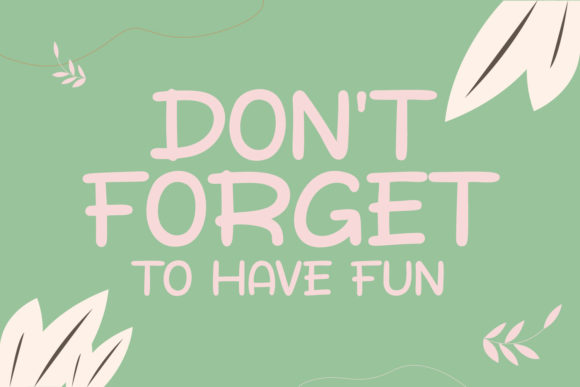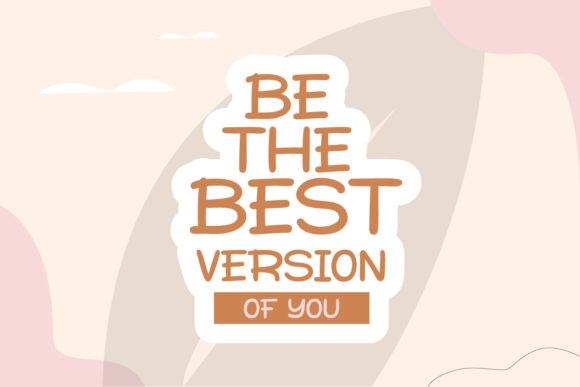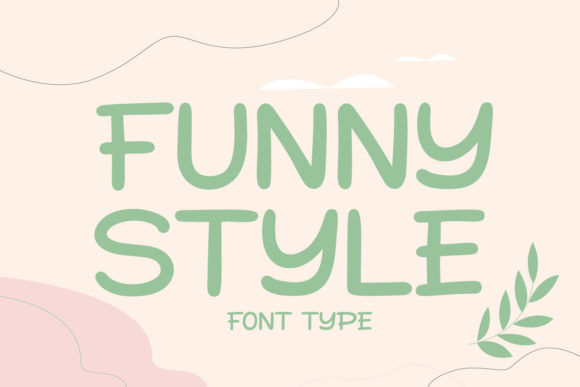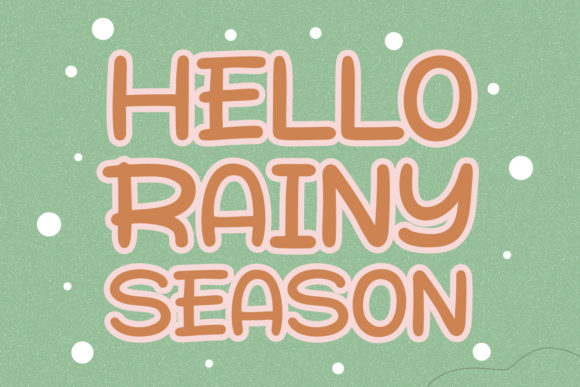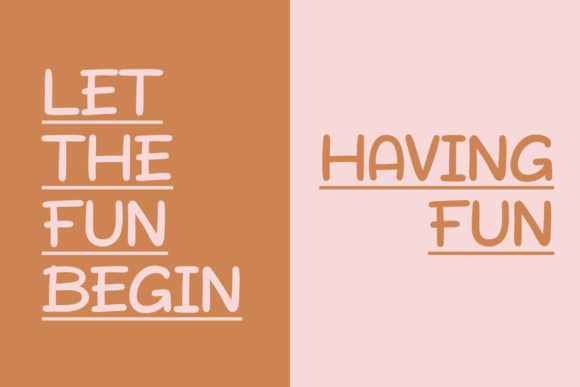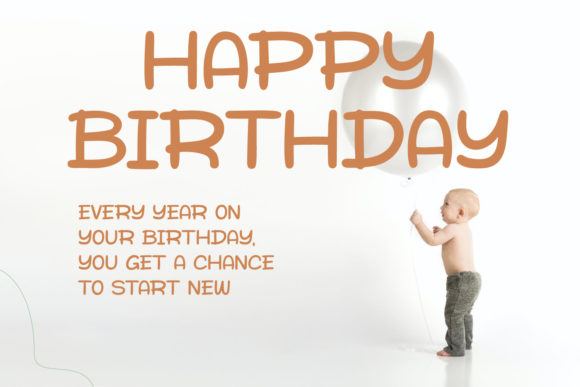
Bubbly Kids Font: Add a Cheerful Touch to Your Designs
Are you looking for a font that can add a playful and cheerful touch to your designs? Look no further than Bubbly Kids Font! This adorable display font is perfect for projects related to school children, games, storybooks, and more. In this article, we’ll explore the features and benefits of Bubbly Kids Font and how you can use it to take your designs to the next level.
What is Bubbly Kids Font?
Bubbly Kids Font is a cute and fun display font designed to bring a smile to your face. Its playful and cheerful design makes it perfect for projects that require a lighthearted and youthful touch. The font is carefully crafted to resemble the handwriting of happy and excited kids, making it an excellent choice for designs that need to appeal to children or evoke a sense of nostalgia.
Key Features of Bubbly Kids Font
- Cute and Playful Design: Bubbly Kids Font features a unique and adorable design that is sure to capture the attention of your audience.
- Display Font: This font is specifically designed as a display font, making it perfect for headlines, titles, and other prominent text elements.
- Cheerful and Happy Touch: The font’s playful design adds a cheerful and happy touch to your designs, making it perfect for projects that require a lighthearted tone.
- Multilingual Support: Bubbly Kids Font supports multiple languages, making it a great choice for designers who work on international projects.
Use Cases for Bubbly Kids Font
Bubbly Kids Font is a versatile font that can be used in a variety of projects, including:
- School Projects: Use Bubbly Kids Font to create fun and engaging materials for school projects, such as posters, flyers, and presentations.
- Games and Puzzles: Add a playful touch to your games and puzzles with Bubbly Kids Font, making them more appealing to kids.
- Storybooks and Children’s Books: Use Bubbly Kids Font to create engaging and interactive storybooks and children’s books that will delight young readers.
- Crafting and DIY Projects: Add a personal touch to your crafting and DIY projects with Bubbly Kids Font, making them more special and unique.
Benefits of Using Bubbly Kids Font
Using Bubbly Kids Font in your designs offers several benefits, including:
- Unique and Eye-catching Design: Bubbly Kids Font features a unique and eye-catching design that will set your designs apart from the rest.
- Emotional Connection: The font’s playful and cheerful design helps create an emotional connection with your audience, making your designs more relatable and engaging.
- Time-saving: Bubbly Kids Font is a pre-designed font that saves you time and effort in creating your own custom font from scratch.
Tips for Using Bubbly Kids Font
Here are some tips for using Bubbly Kids Font effectively in your designs:
- Use it for Headlines and Titles: Bubbly Kids Font is perfect for headlines and titles, where you want to grab the attention of your audience.
- Experiment with Colors and Textures: Add an extra layer of creativity to your designs by experimenting with different colors and textures.
- Pair it with Other Fonts: Bubbly Kids Font can be paired with other fonts to create a unique and visually appealing design.
Bubbly Kids Font is a fun and playful display font that can add a cheerful and happy touch to your designs. With its unique and eye-catching design, multilingual support, and versatility, it’s perfect for projects related to school children, games, storybooks, and more. By using Bubbly Kids Font, you can create engaging and interactive designs that will delight your audience and set your work apart from the rest.